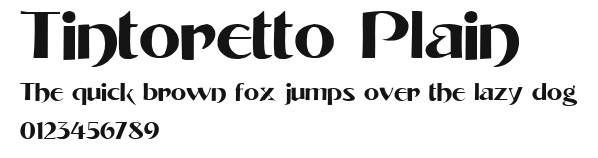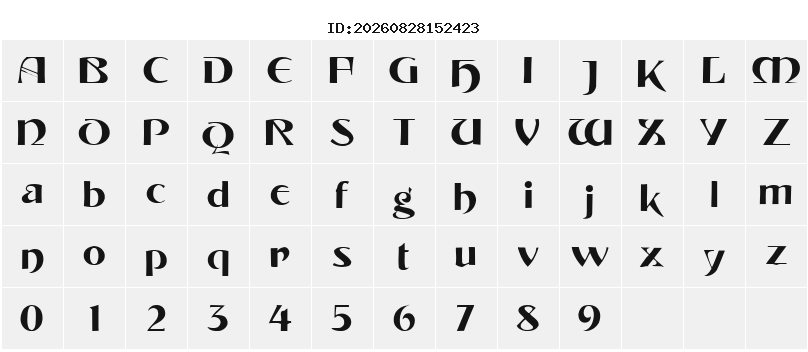
About Tintoretto Plain.ttf
Tintoretto Plain.ttf is a modern, elegant sans-serif font designed for ultimate readability and visual harmony. Perfect for branding, headlines, web design, and print materials.